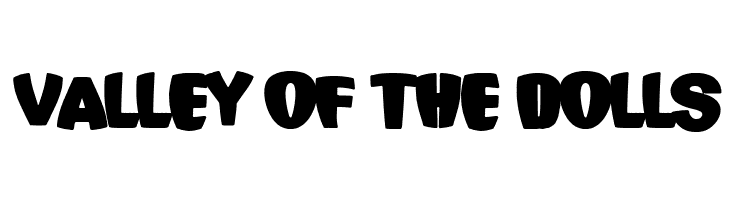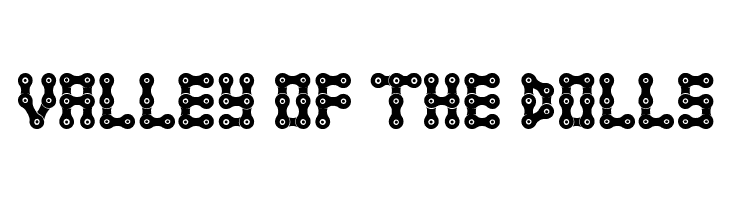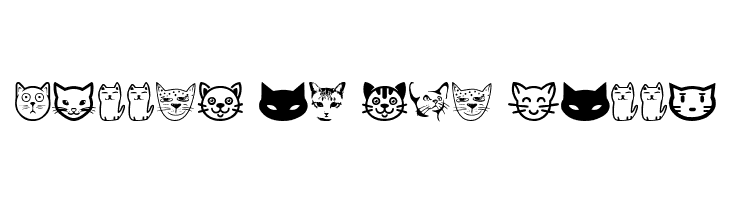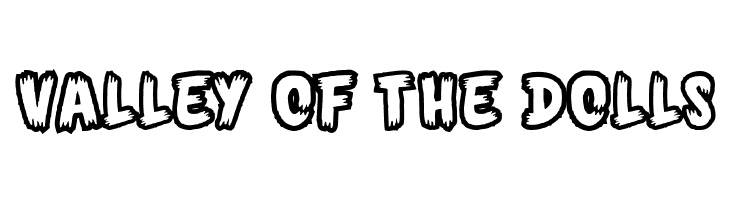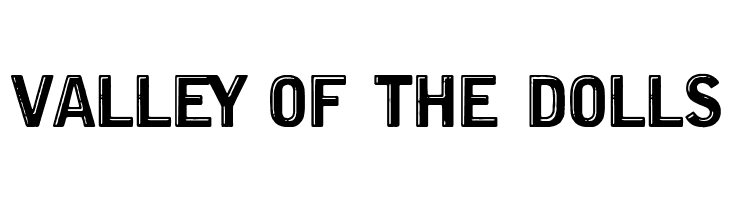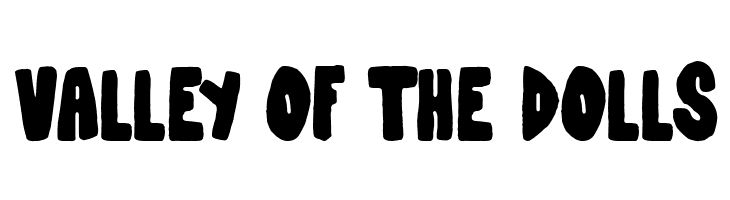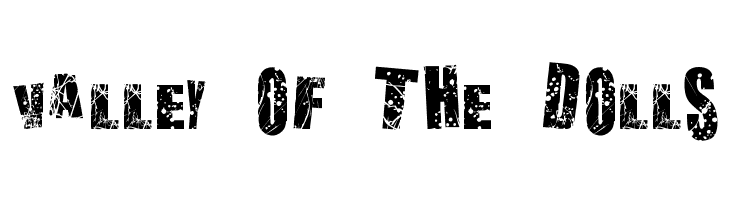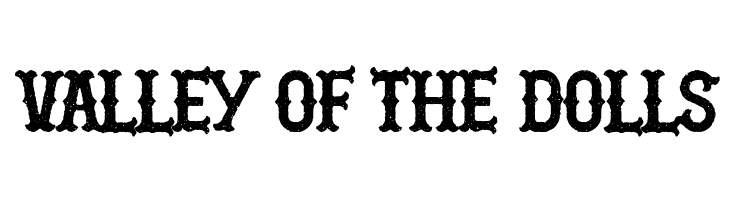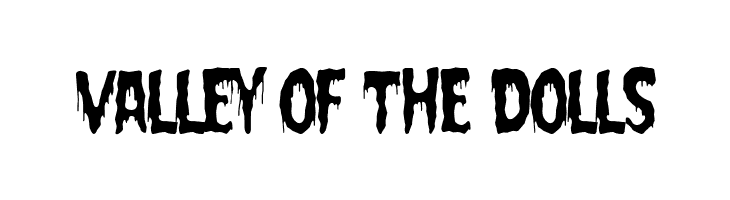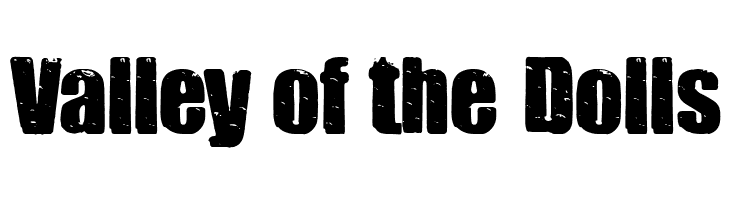
• Capitan Morgan
A bold, decorative font with a vintage pirate theme and distressed texture.
• Captain Stencil
A bold, stencil-style font with geometric shapes and cut-out sections.
• Car Parts
Automotive icon font with bold, detailed car part illustrations.
• Carajillo de Anís
A bold, playful font with thick, rounded strokes and a whimsical style.
• Cardinale 370
A bold, decorative font with a unique dotted texture.
• Carmen Polo Superstar
A bold, expressive handwritten font with dynamic curves and thick strokes.
• Carnage 1974
A bold, horror-themed font with a dripping effect and dramatic style.
• Carnage College
A bold, distressed font with a grunge aesthetic and textured splatters.
• Carnage Movie Poster
A bold, brush-like font with jagged strokes and an intense, dynamic style.
• Cartoon Empire
A bold, playful font with a cartoonish style and rounded, exaggerated serifs.
• Cartoon Queen
A bold, cartoon-style font with a 3D shadow effect, perfect for playful designs.
• Cartucho
A bold, rounded font with a strong and playful presence.
• Casa Camarón
A playful, hand-drawn font with bold, rounded strokes and a whimsical style.
• Casimiro
A bold, playful font with thick, rounded strokes and a whimsical style.
• Casino Bar
A bold, vintage-style font with textured interiors and strong outlines.
• Casino Madrid
A geometric, art deco-inspired font with clean lines and angular elements.
• Castilla Viva!
A bold, textured font with a dotted pattern, perfect for creative and impactful designs.
• Cat Faces
A playful decorative font featuring a variety of expressive cat faces.
• Cebollas Tiernas
A bold, playful, hand-drawn font with a whimsical and informal style.
• Celebration